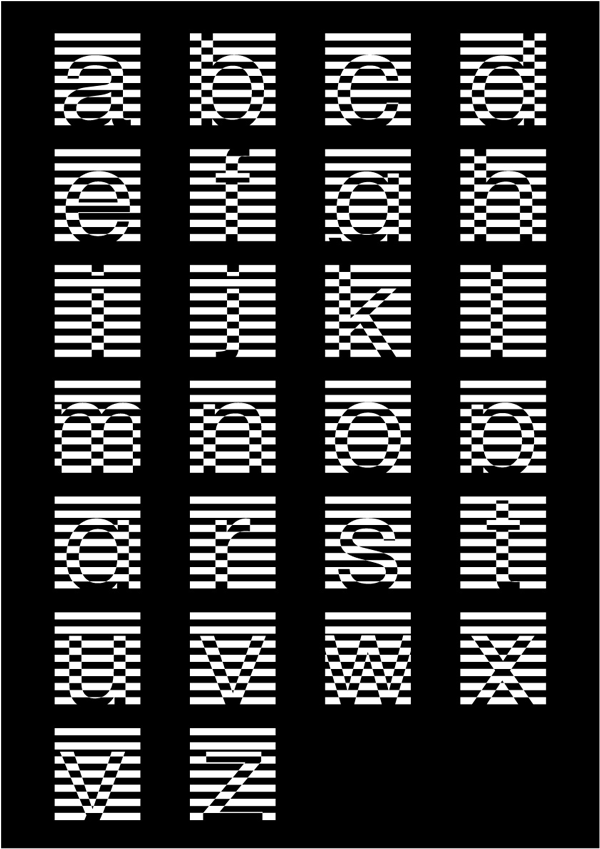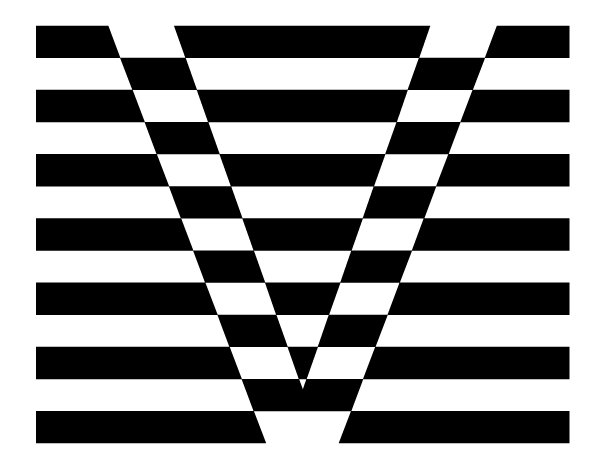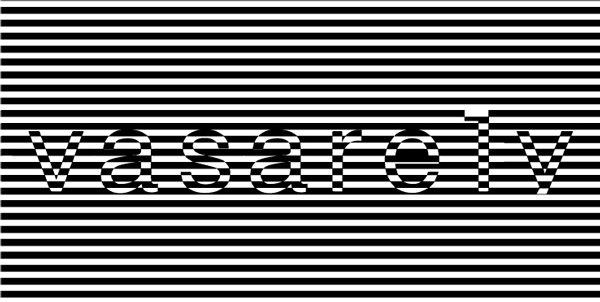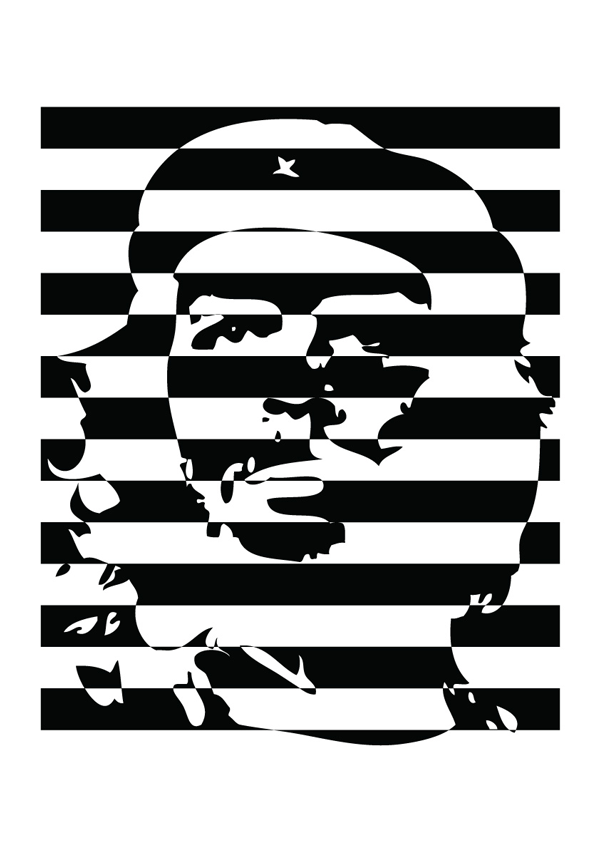
Vasarely
Vasarely font is an experimental font inspired from the Hugarian artist Victor Vasarely, the leader of the Op - Art movement. The main idea is based in his most famous work, Zebra, the black and white synthesis of two zebras. Vasarely Font was designed in 2006, for the exhibition "Open Eye", which took part in Irakleidon Museum, in Athens and it won the first award in the same competition